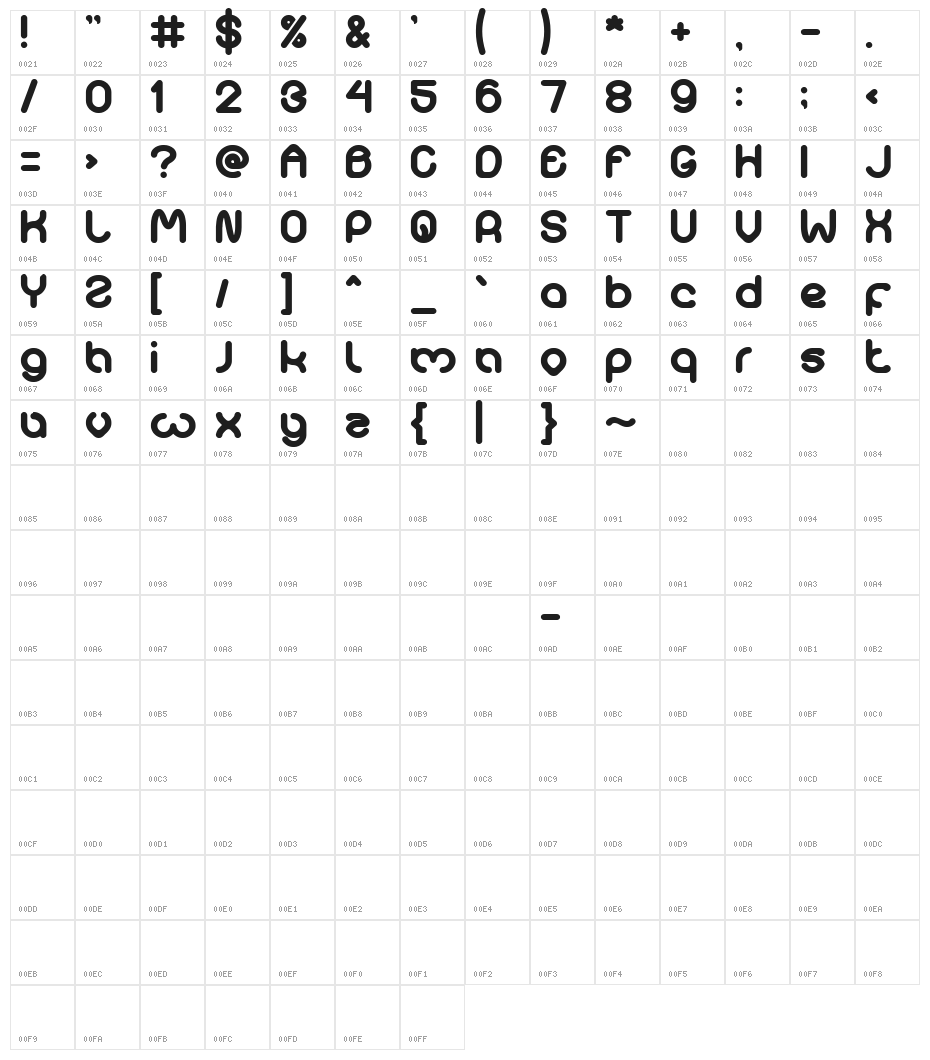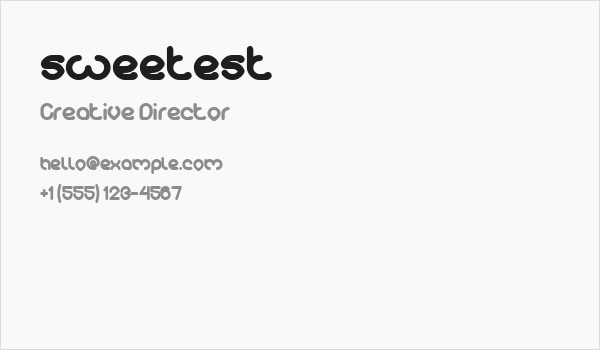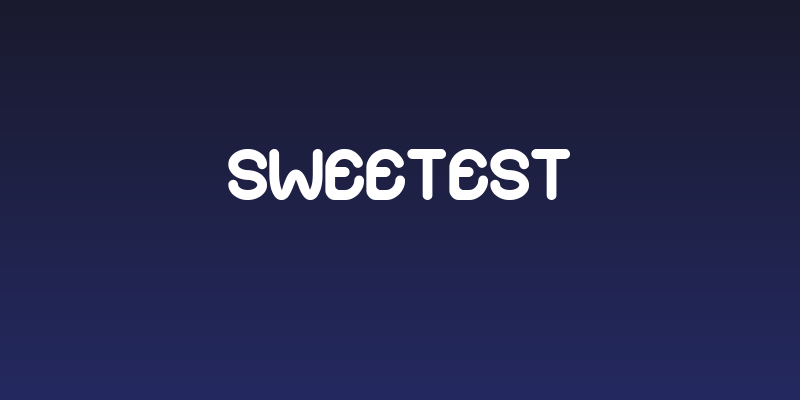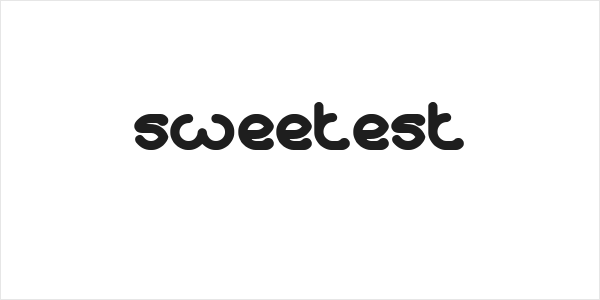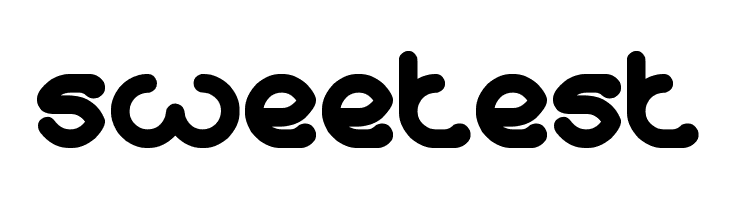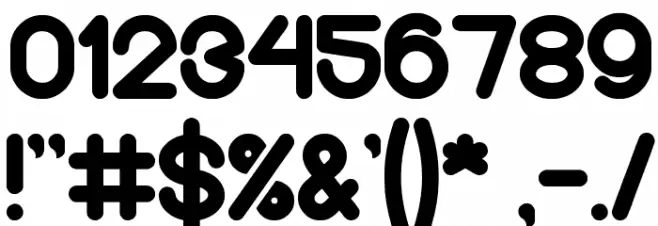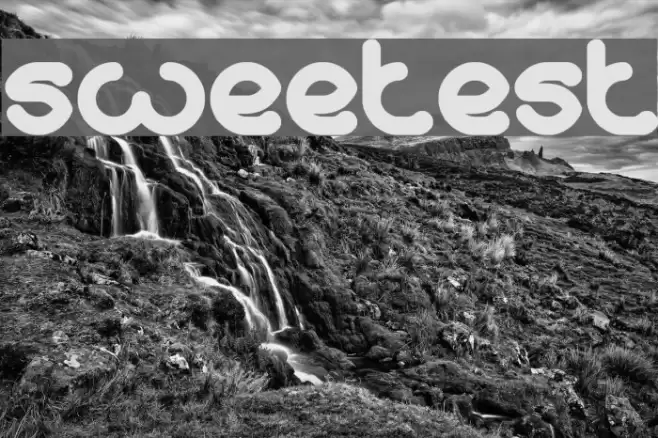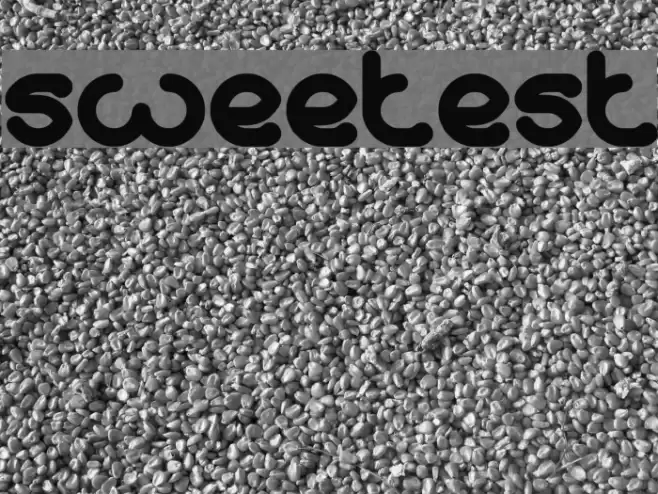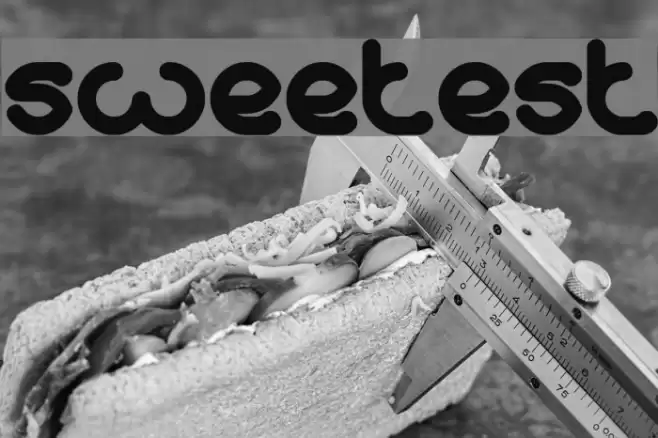
sweetest Font
sweetest Description
This font features a playful and rounded style with a bold presence. The characters are uniformly thick, creating a cohesive and friendly appearance. The rounded edges and smooth curves give it a soft, approachable feel, making it ideal for projects that require a touch of whimsy or fun. The uppercase and lowercase letters maintain a consistent width, while the numbers and special characters follow the same design principles, ensuring a harmonious look across all text. The font's boldness and rounded forms make it stand out, yet it remains legible and clear.
| Overall Style | Playful |
| Proposed Projects | Ideal for children's books, playful branding, party invitations, and casual social media graphics. |